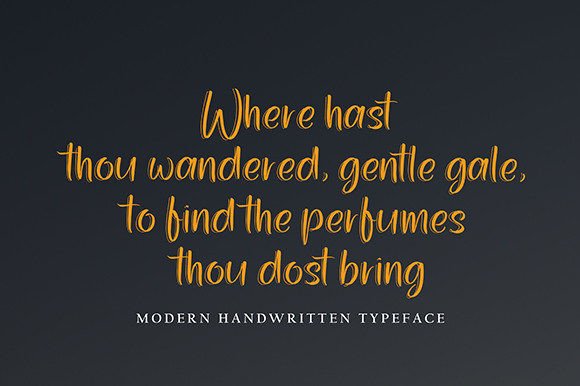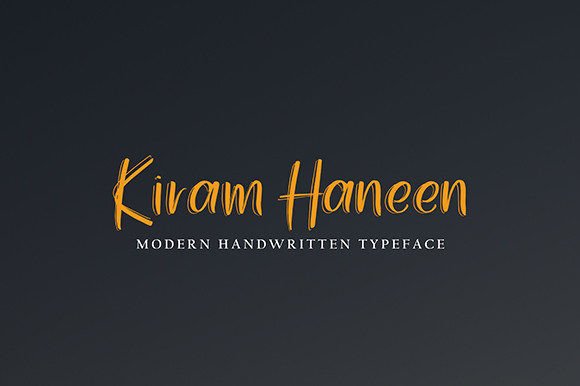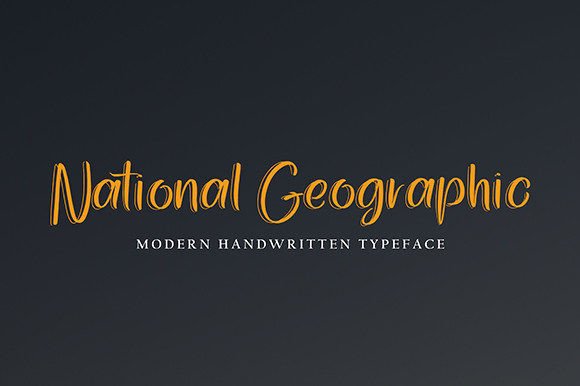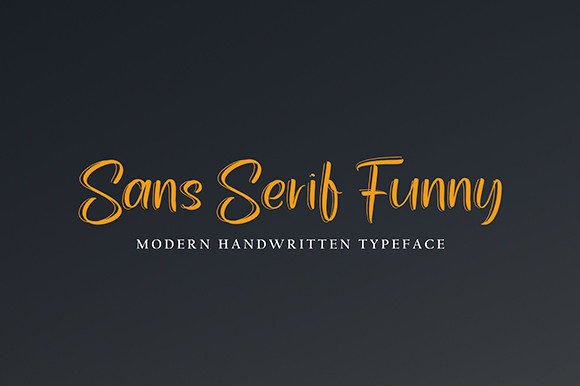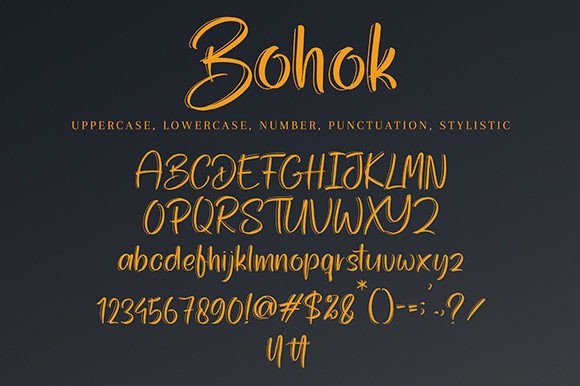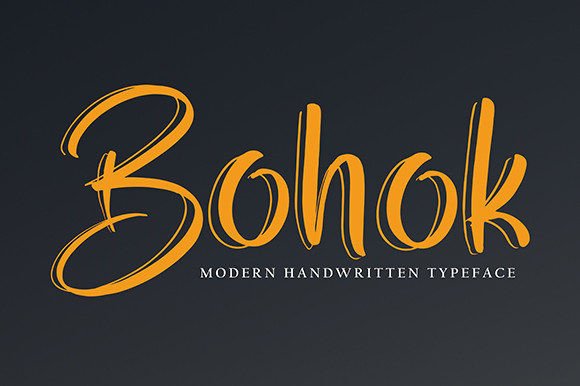
Introducing Bohok Font: The Cool and Modern Handwritten Brush Font
Are you looking for a font that can add a trendy and modern touch to your designs? Look no further than Bohok Font, a cool and modern handwritten brush font that’s perfect for designers and crafters alike. With its unique and stylish lettering, Bohok Font is sure to take your designs to the next level.
What is Bohok Font?
Bohok Font is a handwritten brush font that’s designed to give your designs a fun and trendy look. It’s a modern font that’s inspired by the latest design trends, making it perfect for projects that require a fresh and youthful feel. Whether you’re working on a logo, a poster, or a social media graphic, Bohok Font is the perfect choice.
Features of Bohok Font
So, what makes Bohok Font so special? Here are just a few of its key features:
- Handwritten brush style: Bohok Font has a unique, handwritten brush style that’s perfect for adding a personal touch to your designs.
- Modern and trendy: This font is designed to be modern and trendy, making it perfect for projects that require a fresh and youthful feel.
- Easy to read: Despite its unique style, Bohok Font is easy to read, making it perfect for use in a variety of design projects.
- Versatile: Bohok Font can be used in a variety of design projects, from logos and posters to social media graphics and more.
How to Use Bohok Font
- Logos: Use Bohok Font to create a unique and stylish logo for your business or brand.
- Posters: Add a trendy touch to your posters with Bohok Font.
- Social media graphics: Use Bohok Font to create eye-catching social media graphics that will help you stand out from the crowd.
- Invitations: Add a personal touch to your invitations with Bohok Font.
Why Choose Bohok Font?
So, why should you choose Bohok Font for your design projects? Here are just a few reasons:
- Unique style: Bohok Font has a unique and stylish lettering that will help your designs stand out from the crowd.
- High-quality: This font is high-quality and designed to look great in a variety of design projects.
Tips for Using Bohok Font
Here are a few tips for using Bohok Font in your design projects:
- Use it sparingly: While Bohok Font is a beautiful font, it can be overwhelming if used too much. Use it sparingly to add a touch of elegance to your designs.
- Pair it with other fonts: Bohok Font looks great when paired with other fonts. Try pairing it with a clean sans-serif font for a stylish contrast.
- Experiment with colors: Bohok Font looks great in a variety of colors. Experiment with different colors to find the perfect look for your design.
In conclusion, Bohok Font is a cool and modern handwritten brush font that’s perfect for designers and crafters alike. With its unique and stylish lettering, Bohok Font is sure to add a trendy touch to your designs. Whether you’re working on a logo, a poster, or a social media graphic, Bohok Font is the perfect choice. So why wait? Download Bohok Font today and start creating stunning designs!